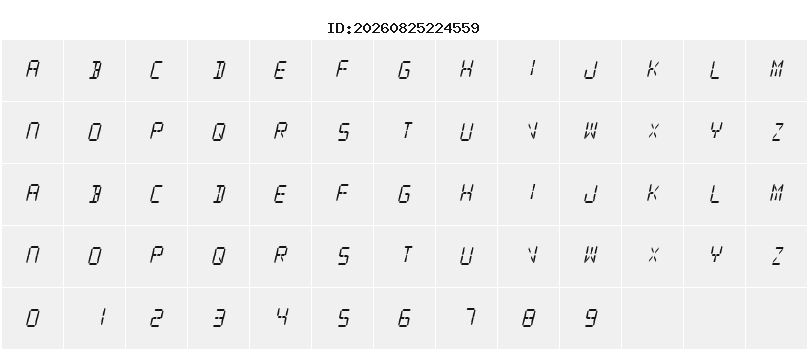
SF Digital Readout Preview
• Font Name: SF Digital Readout
• Font Style: Medium Oblique
• Full Font Name: SF Digital Readout Medium Oblique
About SF Digital Readout.ttf
SF Digital Readout.ttf is a modern, elegant sans-serif font designed for ultimate readability and visual harmony. Perfect for branding, headlines, web design, and print materials.